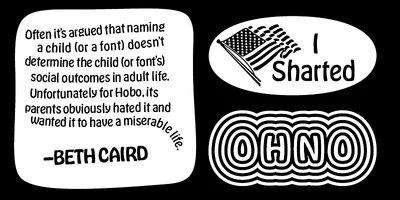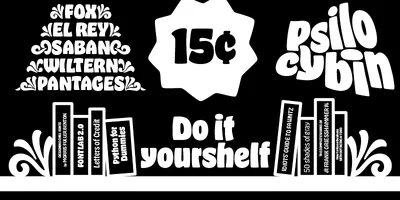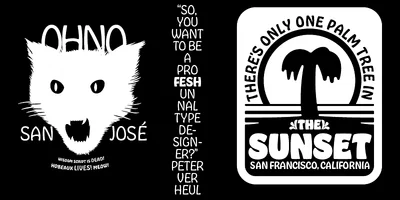
Hobeaux vs Milkshake
Hobeaux and Milkshake are both display typefaces sharing a retro foundation. Where Hobeaux leans art deco, expressive, Milkshake brings script, bold. Compare which suits your Branding project.
Hobeaux
RetroArt DecoExpressive
Display
Milkshake
Script
RetroBold
Display
Feature Hobeaux Milkshake
Classification display display
Variable Font No No
Weights Multiple Multiple
Italics Yes Yes
Language Support latin, latin-extended latin, latin-extended
Recommended: Hobeaux
• art deco, expressive design character
• Suited for Editorial and Posters
Consider: Milkshake
• script, bold design character
• Suited for Display and Retro